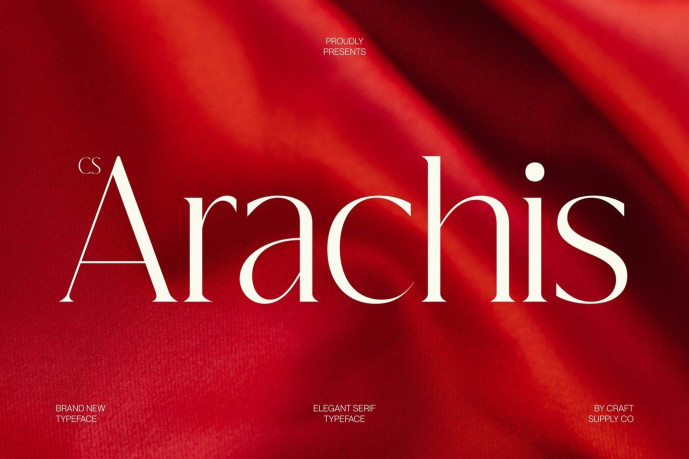
Arachis – Elegant Serif Font
CS Arachis – Elegant Serif Font: Where Graceful Contrast Meets Timeless Luxury Refined Curves with Elongated Details This is an elegant serif font defined by its refined curves and graceful elongated details, creating a sophisticated and luxurious visual identity. Its carefully crafted letterforms feature beautiful contrast between delicate and bold strokes, delivering a polished appearance that feels both expressive and timeless. Every character is designed to evoke elegance while maintaining exceptional clarity and balance.
Beautiful Contrast with Contemporary Elegance This font achieves a harmonious balance between tradition and contemporary style. Its elongated details enhance the sense of rhythm and sophistication, while the refined stroke contrast adds depth and visual interest. The result is typography that feels graceful, distinctive, and perfectly suited for premium design.
Sophisticated Style with Lasting Impression This font communicates luxury through its elegant structure and meticulously balanced proportions. Its graceful forms create a striking visual presence without sacrificing readability, making it equally effective for dramatic headlines and refined branding. Whether used in print or digital media, it conveys prestige, confidence, and timeless beauty.
Perfect for Luxury Design, Editorials, and Magazines Ideal for luxury branding, editorial layouts, magazines, beauty packaging, premium product labels, logos, invitations, hotel and hospitality branding, advertising campaigns, and other high-end creative projects. Its elegant serif forms make it perfect for typography that seeks to communicate sophistication, exclusivity, and refined craftsmanship.